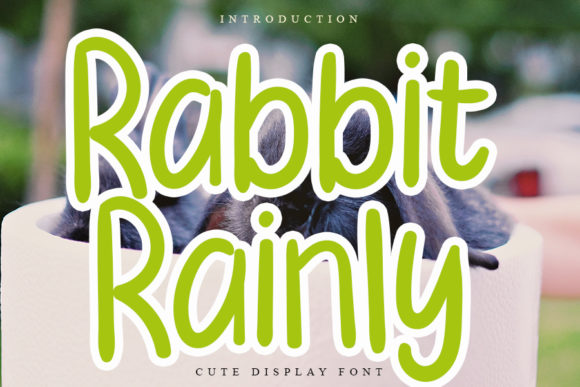
Introducing Rabbit Rainly Font: A Whimsical Journey into the World of Display Typography
Embark on an enchanting adventure with Rabbit Rainly Font, a captivating display font that adds a touch of whimsy and charm to your designs. Its playful and approachable style makes it the perfect choice for a wide range of projects, from playful branding to cheerful invitations.
With Rabbit Rainly, your words will dance across the page, captivating the attention of viewers and leaving a lasting impression. Crafted with meticulous attention to detail by the renowned FL Space, this font embodies a sense of joy and wonder that shines through in every character.
Step into a Realm of Creativity
Unlimited Possibilities Unveil your imagination with Rabbit Rainly Font. Its versatility knows no bounds, allowing you to create unique and captivating designs that reflect your artistic vision. Whether you're designing eye-catching logos, playful posters, or enchanting social media graphics, Rabbit Rainly Font is your perfect companion.
With a full range of glyphs, including uppercase and lowercase letters, numbers, and a variety of punctuation marks, Rabbit Rainly Font provides the flexibility you need to bring your creative ideas to life. The meticulously crafted kerning and spacing ensure optimal readability, making your designs impactful and easy to understand.
Ignite Your Designs with Joy
Spark a Connection with Your Audience
Stand Out in the Digital Landscape
In a world saturated with visual clutter, Rabbit Rainly Font helps you cut through the noise and make a lasting impression. Its distinctively charming style commands attention and draws viewers into your message. Whether you're promoting a new product, sharing an inspiring story, or simply expressing your creativity, Rabbit Rainly Font adds a touch of magic that captivates and engages.